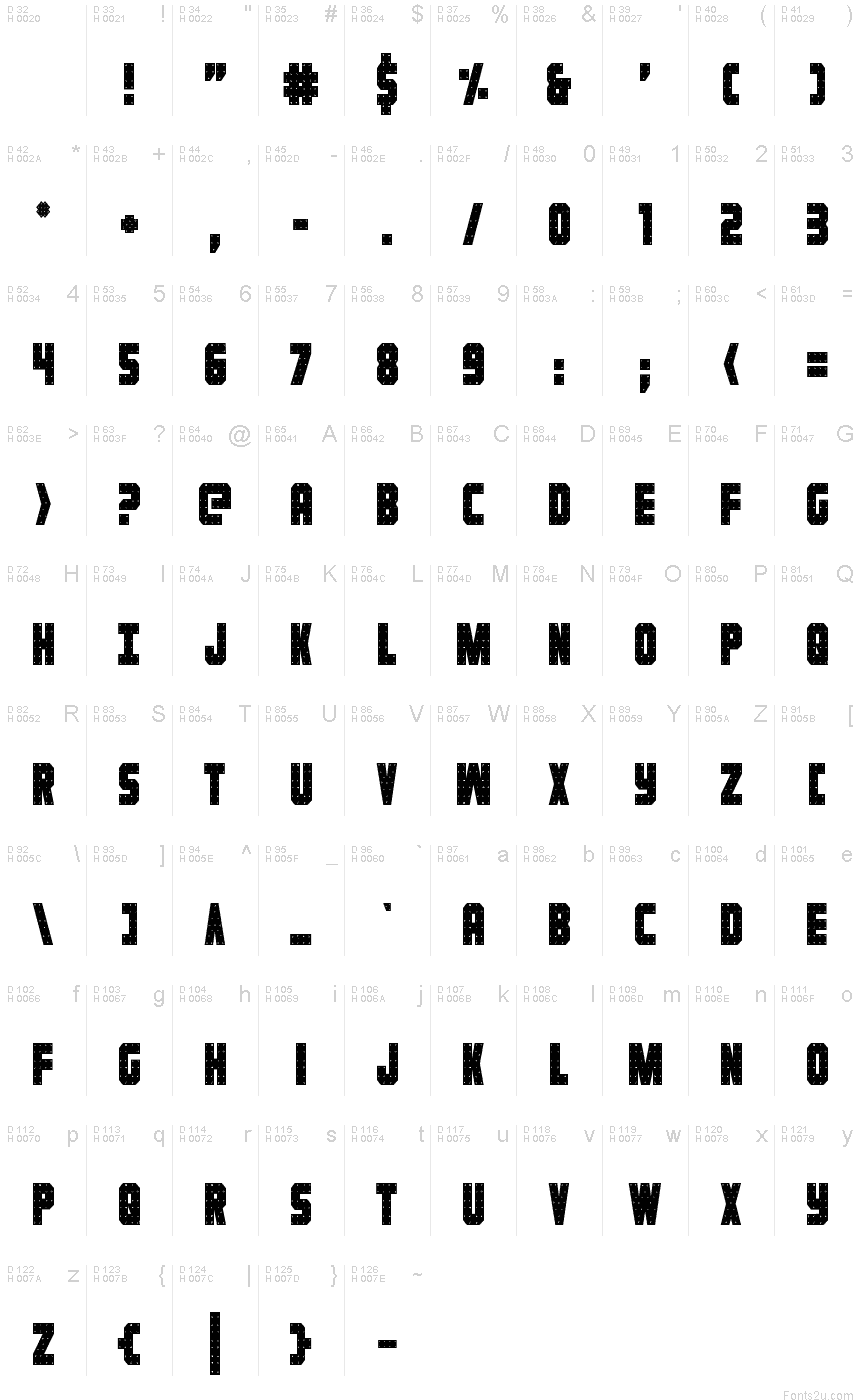
Iron Forge Condensed by Daniel Zadorozny of Iconian Fonts is a free condensed sans serif with an industrial, hard-worn finish. Its tall, forceful letters are cut by sharp notches and scattered pits that resemble damaged steel. The silhouette stays dense and imposing.
It suits metalwork branding and action-game graphics for the same reason it fits concert posters and rugged merchandise: the distressed surface feels forged rather than printed. In these settings, the lettering can become part of a stamped plate, battered sign, or machinery-inspired emblem.
Iron Forge Condensed